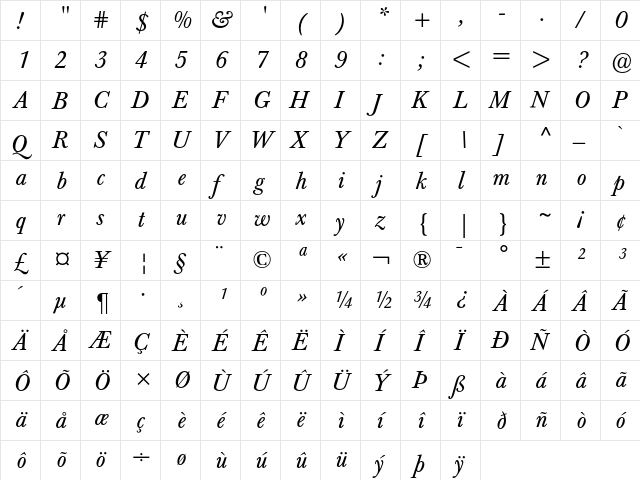
Berthold Baskerville Italic Font Preview
Berthold Baskerville Italic
Berthold Baskerville Italic Font Details
Design Context for Berthold Baskerville Typeface
Berthold Baskerville offers clean, dependable letterforms without strong stylistic allegiance, making it a practical choice for designers who need flexibility. The slanted form adds forward momentum and visual energy.
Pro Tip: Use Berthold Baskerville for emphasis, pull quotes, and subheadings where its slanted energy can add rhythm to the layout.